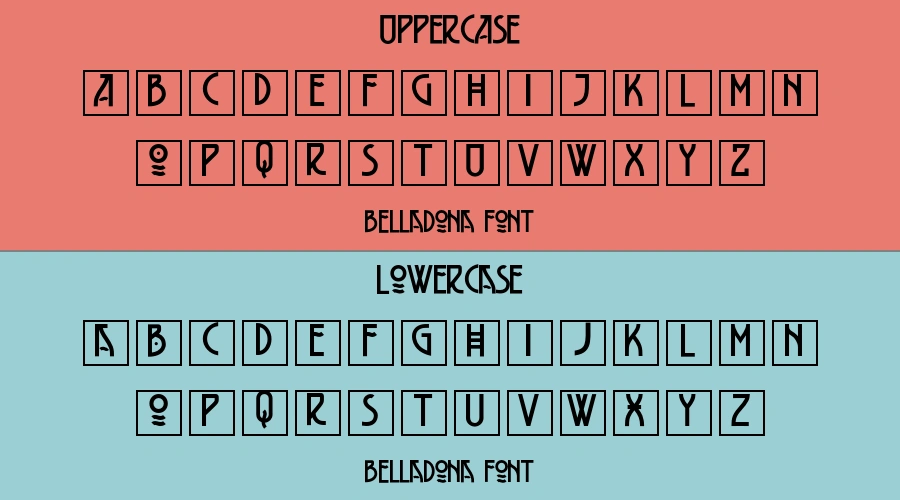
About Belladona Font
Belladona Font stands out for its distinctive combination of rhythmic patterns and adaptability. Ideal for government publications, it provides the precision and artistic merit that professional projects demand. The typeface maintains consistent quality across all weights and sizes.
Key features include refined humanist proportions and practical mathematical symbols, enhancing typographic expression. In exhibition titles applications, Belladona Font demonstrates exceptional small text clarity. The spine curvature and subtle details contribute to its distinctive character and professional appeal.